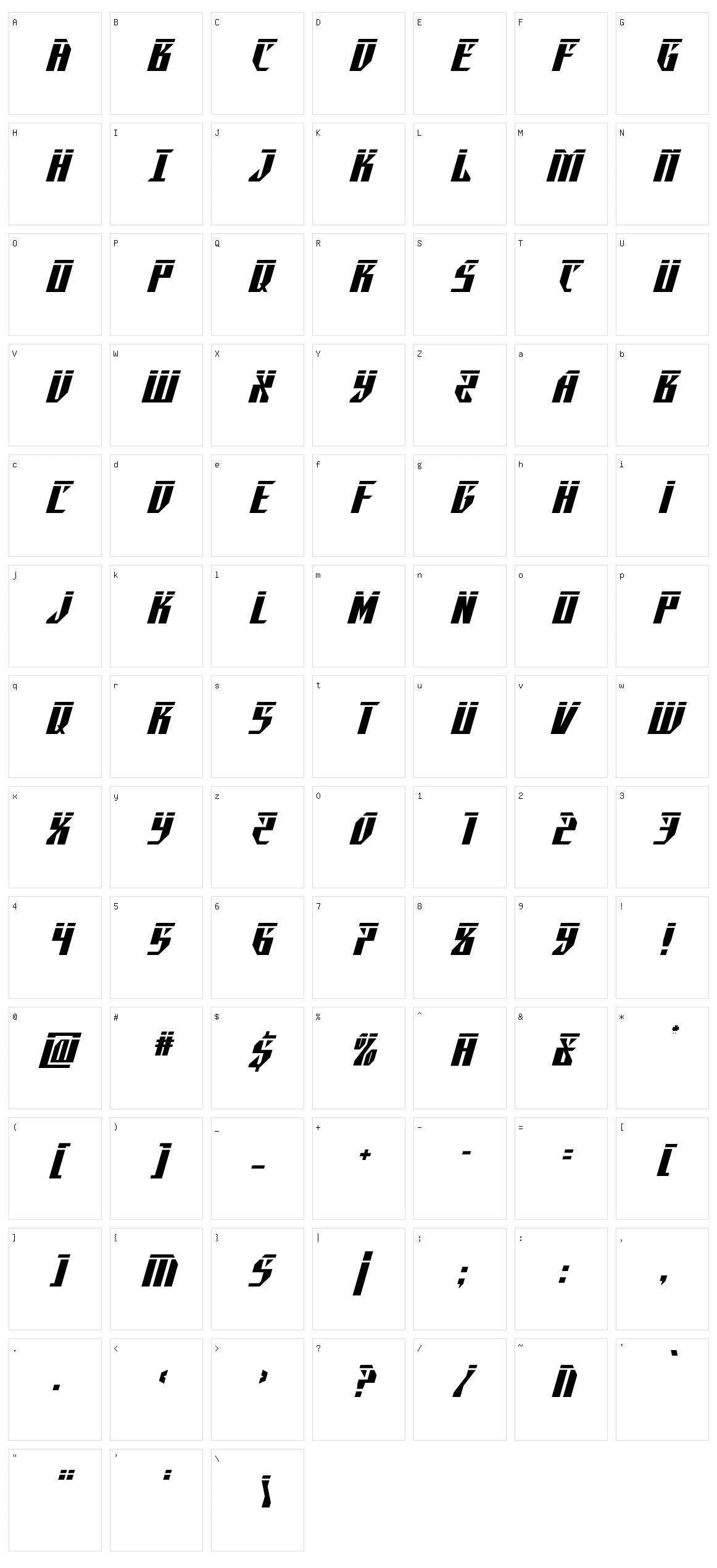
Yonder Blue
This font comes with the following 19 versions: Regular, Straight, Semi-Straight, Italic, Leftalic, Semi-Leftalic, Condensed, Condensed Straight, Expanded, Expanded Straight, 3D, 3D Straight, Spaced, Spaced Straight, Gradient 2, Halftone, Halftone 2 and Laser.